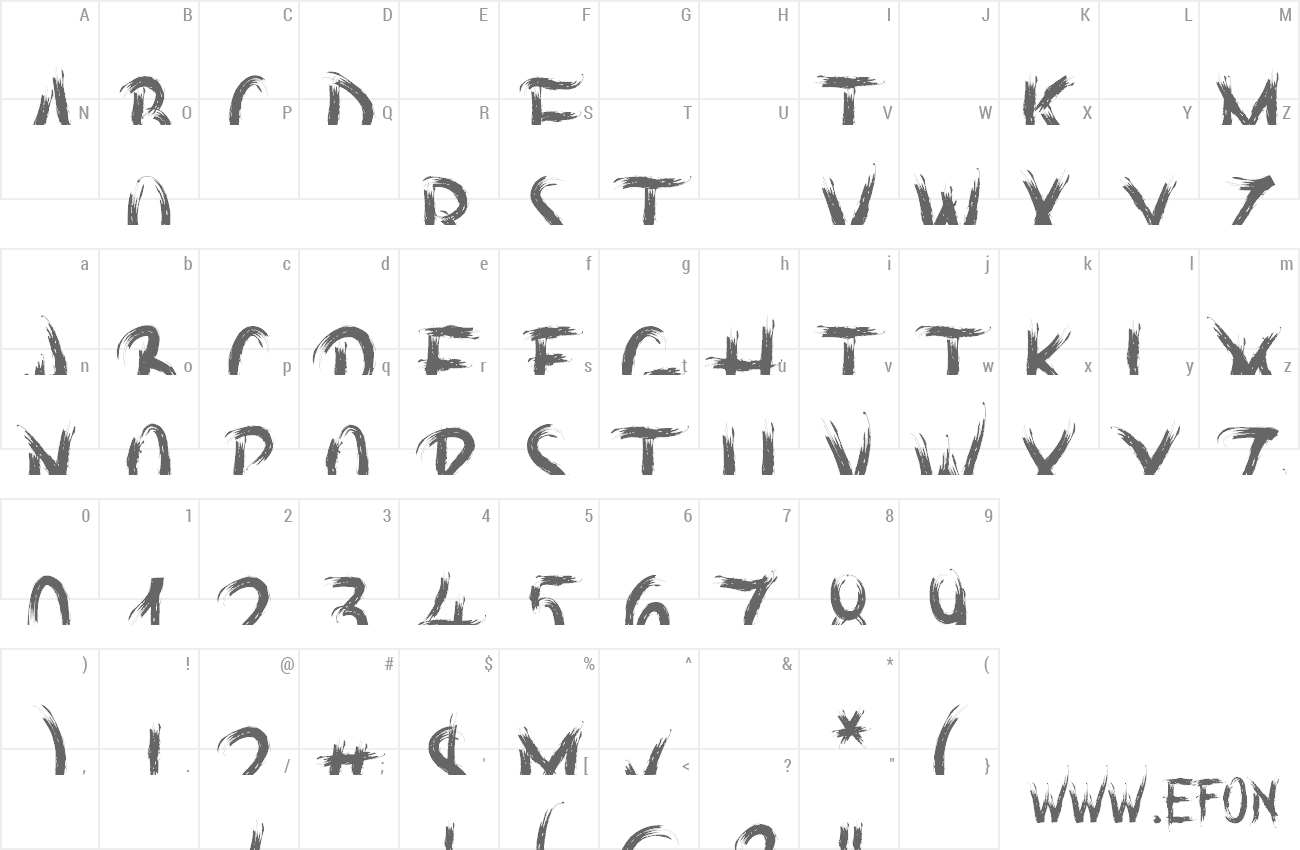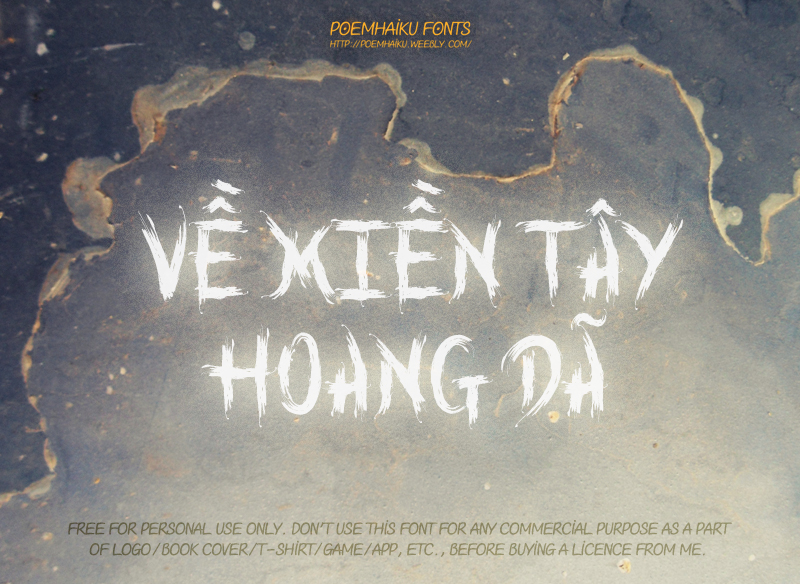
"Into the Wild" is not only a horror font but also a fairy font, it depends totally on you :) Demo version is free for personal use only. Purchase a licence from me to get full version which supports extensive languages. |